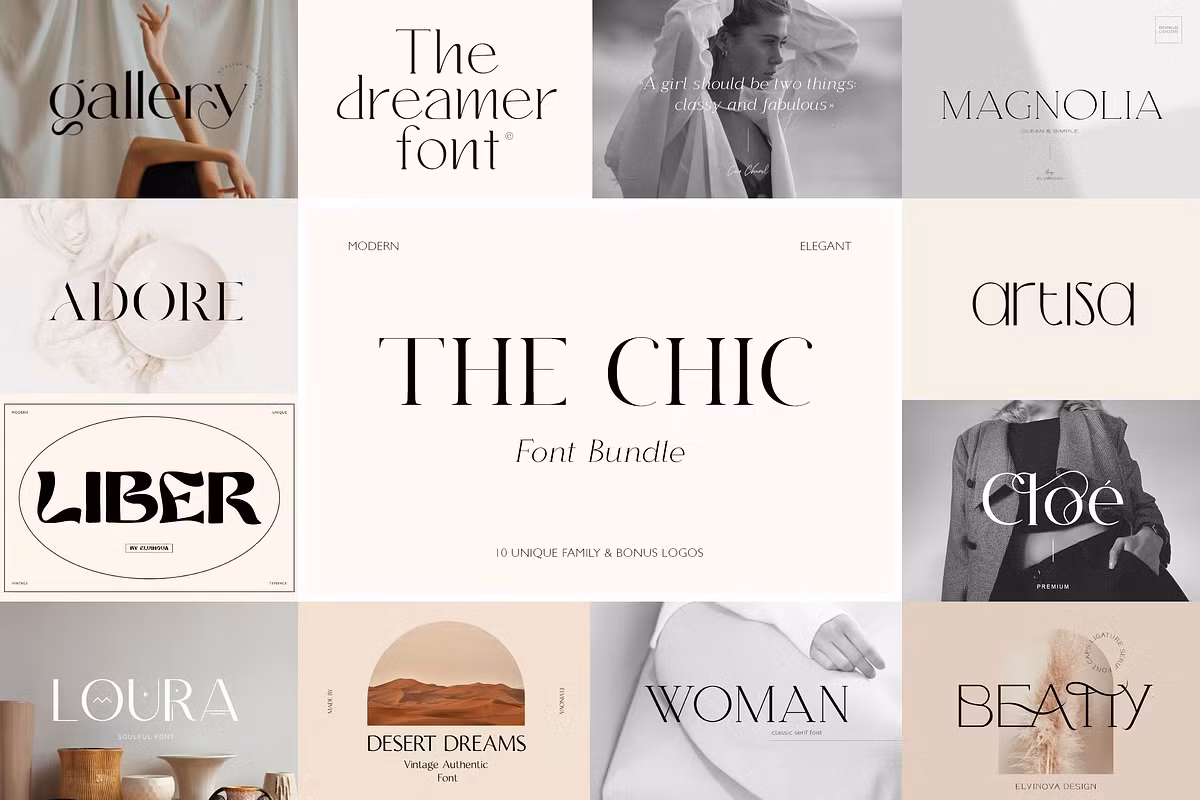
Modern Font Bundle Free Download is a curated collection of sleek, stylish, and versatile fonts designed to meet the needs of contemporary design. This bundle typically includes a mix of sans-serif, serif, and script fonts, offering a wide range of options for everything from branding and logos to editorial layouts, websites, social media graphics, and more.
Each font in the bundle is designed with a modern aesthetic in mind, combining legibility with unique character to create impactful, professional typography. Whether you need bold headings, elegant body text, or creative accents, this bundle has fonts that will elevate your projects and ensure they stand out with a contemporary vibe.
The bundle usually includes uppercase and lowercase letters, numerals, punctuation, and multilingual support, ensuring that your designs can reach a global audience. These fonts work seamlessly for both digital and print projects.